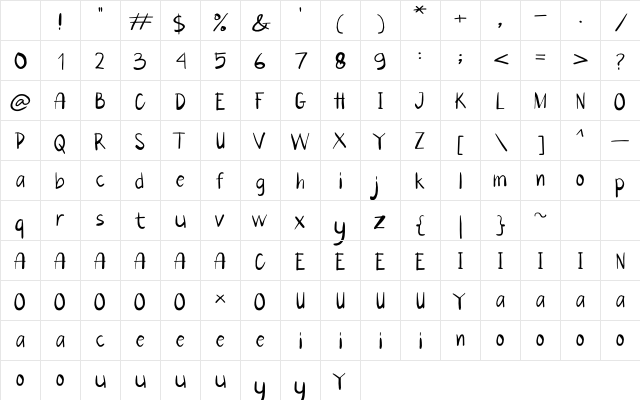
Coretane New Year is a composed and adaptable typeface that performs quietly and consistently across a wide range of design contexts.
Pro Tip: Use Coretane New Year in both headline and body roles to test its range before committing to a single application.